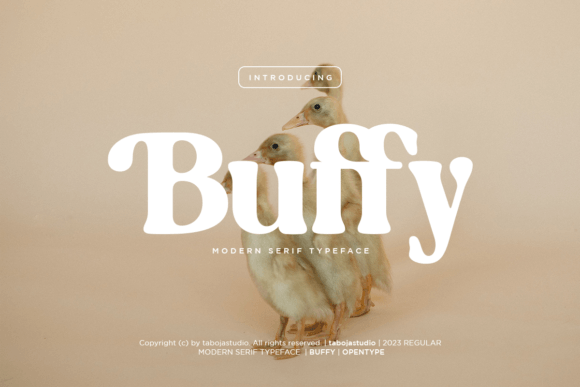
The Ultimate Guide to Buffy Font: Elevate Your Designs with Elegance and Boldness
I’ll never forget the struggle I faced while working on a project for a high-end fashion brand. My task was to create a stunning poster that would grab attention and convey the luxury feel of the brand. However, I was stuck with a bland font that just didn’t cut it. That’s when I discovered the Buffy Font – an elegant serif typeface that combines classic elements with modern touches. In this article, I’ll share my experience with Buffy, its features, and how to make the most of it in your designs.
What is Buffy Font?
Buffy Font is a unique and bold serif display style font that is perfect for making graphic design projects, posters, and layouts stand out. Its elegant and modern design makes it an ideal choice for designers, crafters, and creative hobbyists who want to add a touch of sophistication to their work.
An Honest Review of Buffy Font
What I Love About Buffy Font
- ✨ Elegant and modern design: Buffy font has a unique and bold serif display style that adds a touch of sophistication to any design project.
⚠️ While Buffy font is an excellent choice for many design projects, it’s essential to note that it may not work well for body text or small font sizes. Its bold and elegant design is best suited for headlines, titles, and emphasis.
🤔 Additionally, some users may find that the font’s unique features and glyphs can be overwhelming at first. However, with a little practice and exploration, you’ll be able to unlock the full potential of Buffy font.
A Practical Guide to Using Buffy Font
The Backstory of Buffy Font
Buffy font was designed with the intention of creating a unique and bold serif typeface that would add a touch of elegance and sophistication to any design project. The designer aimed to combine classic serif elements with modern touches, resulting in a font that is both timeless and trendy.
Q: What is the best way to use Buffy font in my design project?
A: Buffy font is best used for headlines, titles, and emphasis. Its bold and elegant design makes it perfect for grabbing attention and conveying a sense of luxury.
Q: Can I use Buffy font for body text?
A: While Buffy font can be used for body text, it’s not recommended. Its bold and elegant design is best suited for headlines and titles, and may not be suitable for large blocks of text.